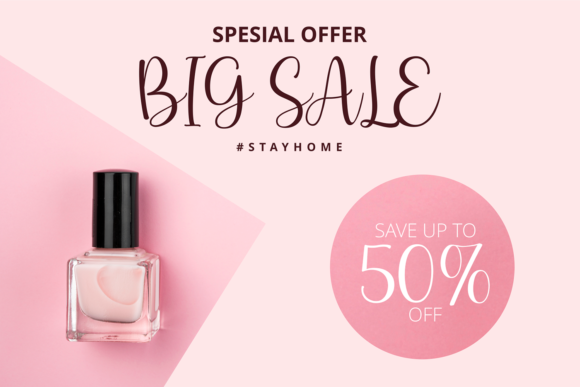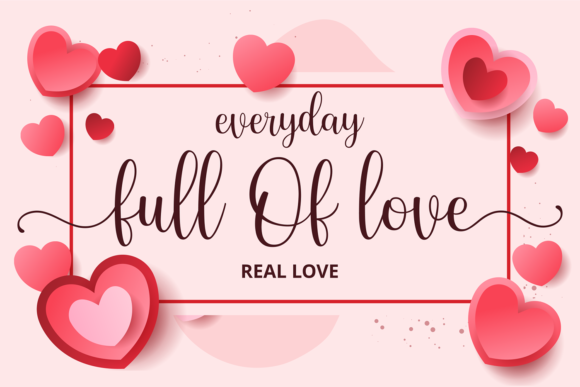
Anissa Font
db-ku.com - Script & Handwritten -- Anissa is a modern and elegant calligraphic script font. Fall in love with its authentic feel and use it to create gorgeous wedding invitations, beautiful stationary art, eye-catching social media posts, and cute greeting cards. This font is PUA encoded which means you can access all of the glyphs and swashes with ease! It features a varying baseline, smooth lines, gorgeous glyphs and stunning alternates.